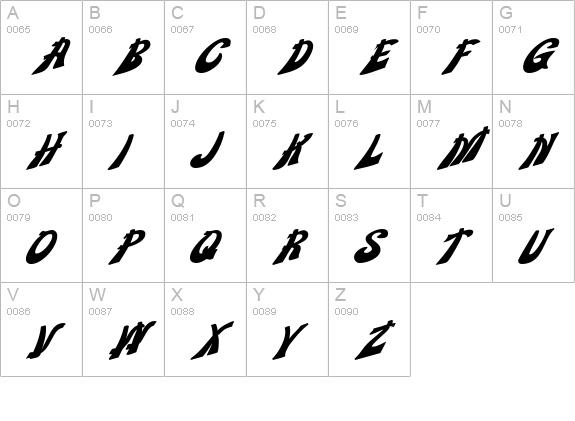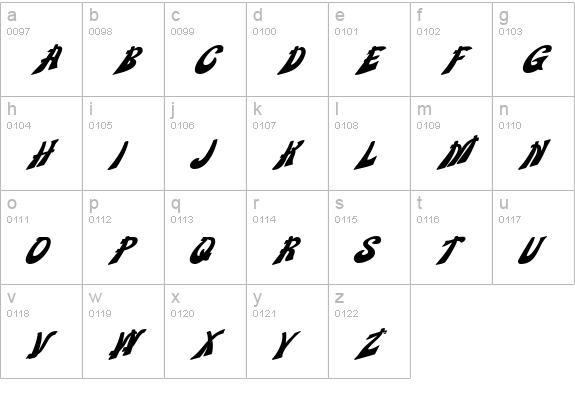
WankleDisplayCaps Bold Font Details
WankleDisplayCaps Bold is a strong, high-contrast variant in the WankleDisplayCaps typeface family \xE2\x80\x94 well suited to headlines, attention-grabbing titles, and strong calls-to-action.
WankleDisplayCaps Bold font is a stunning and powerful typeface that will make your designs stand out. With its bold and attention-grabbing letterforms, this font is perfect for logo designs, headlines, and any project that requires a strong and impactful visual presence. Designed with precision and creativity, WankleDisplayCaps Bold font combines the elegance of classic typography with a modern twist. Its unique and distinctive characters will add a touch of sophistication to any design. One of the best things about WankleDisplayCaps Bold font is that it is freely available to download at FontsMarket.com. This means that you can easily incorporate this exceptional font into your projects without any cost. Whether you are a professional designer or a creative enthusiast, having access to high-quality fonts for free is a game-changer. The versatility of WankleDisplayCaps Bold font allows it to be used in a wide range of design projects. From advertising materials to packaging, website design to social media graphics, this font will elevate your designs to new heights. With its clean lines and bold presence, WankleDisplayCaps Bold font is highly legible, making it perfect for both print and digital applications. Its consistent and well-crafted letterforms ensure readability even at small sizes, making it suitable for various design contexts. Don't miss the opportunity to enhance your designs with the WankleDisplayCaps Bold font. Download it for free at FontsMarket.com and unlock a world of creative possibilities.